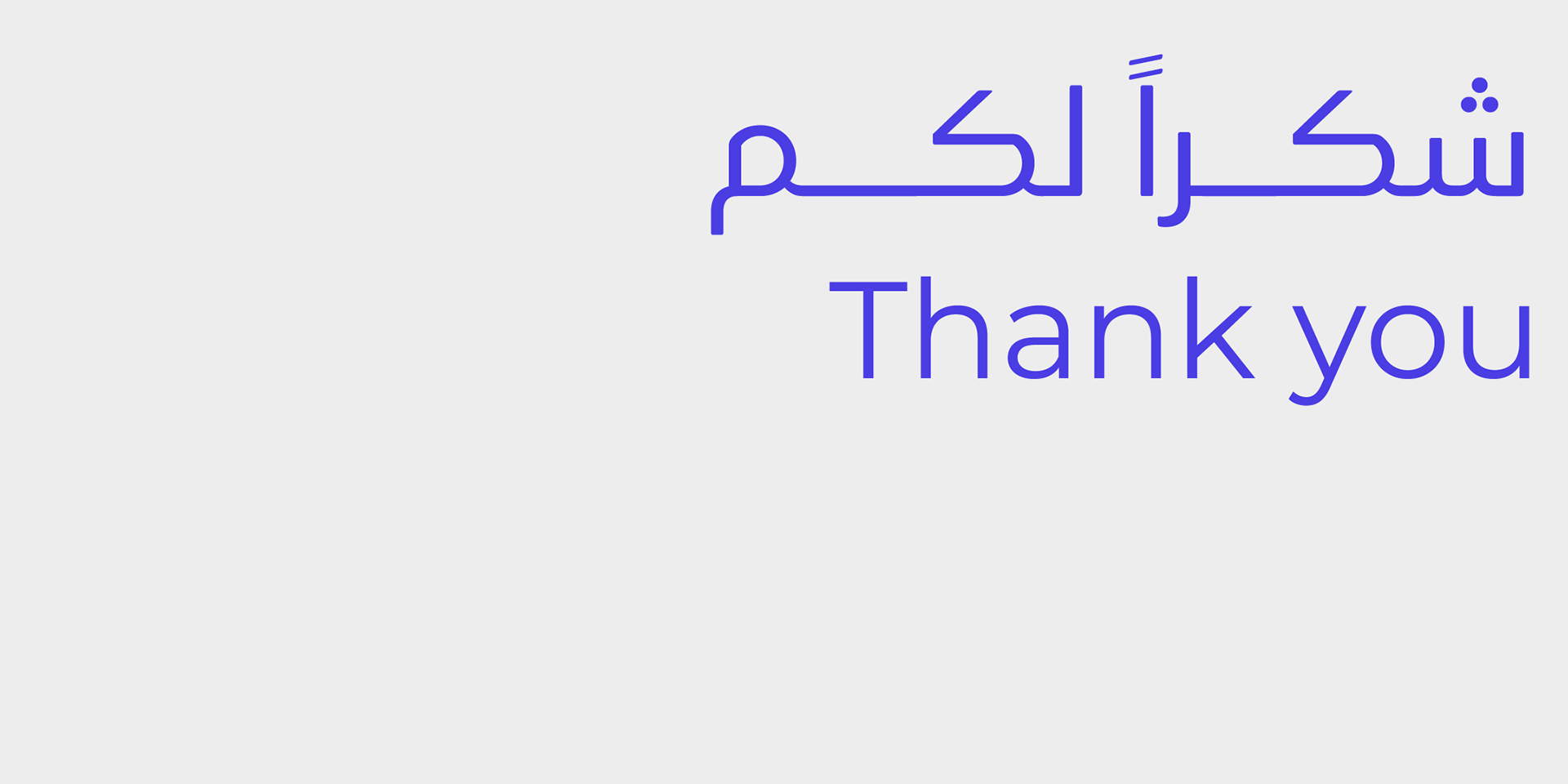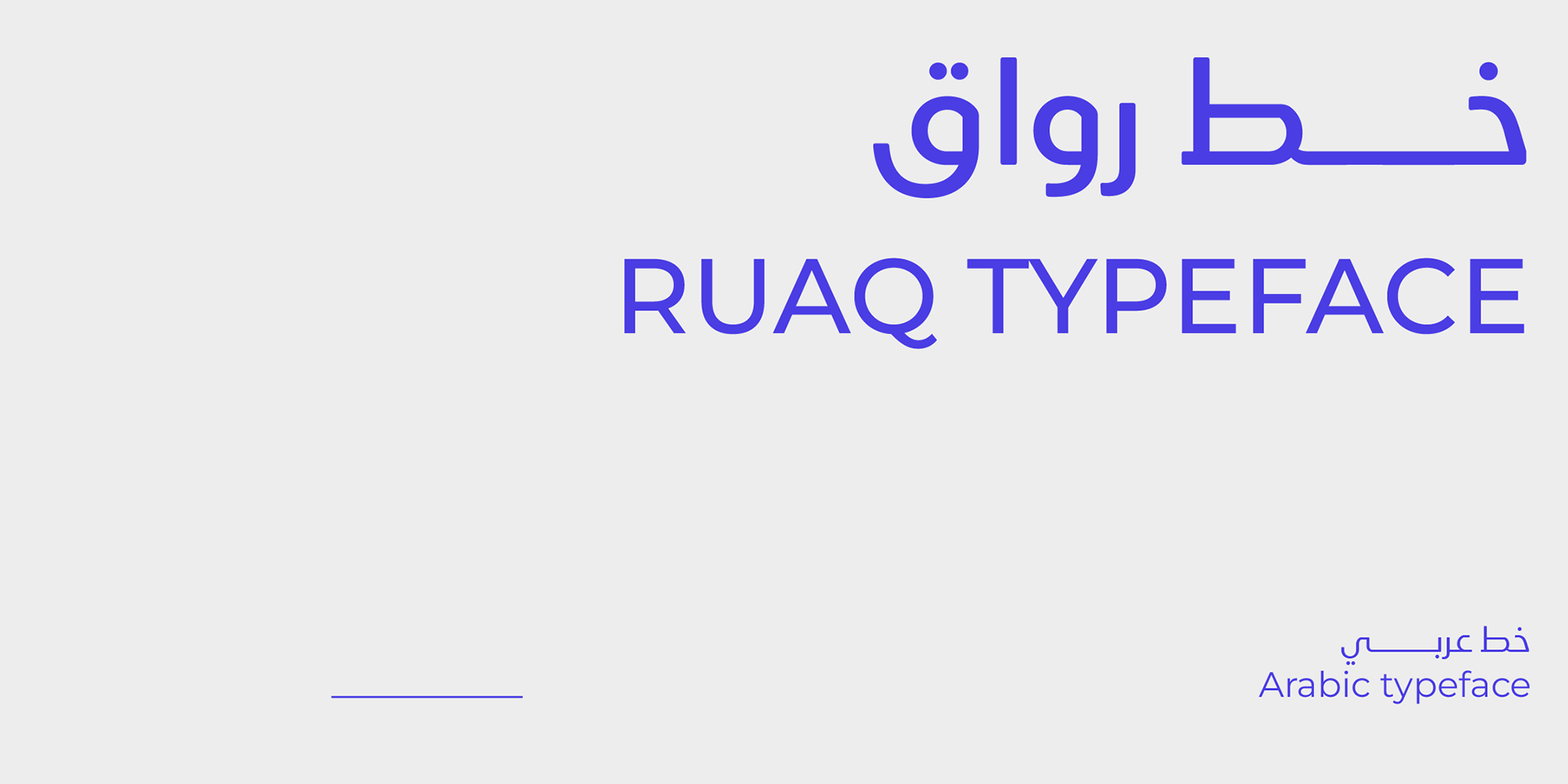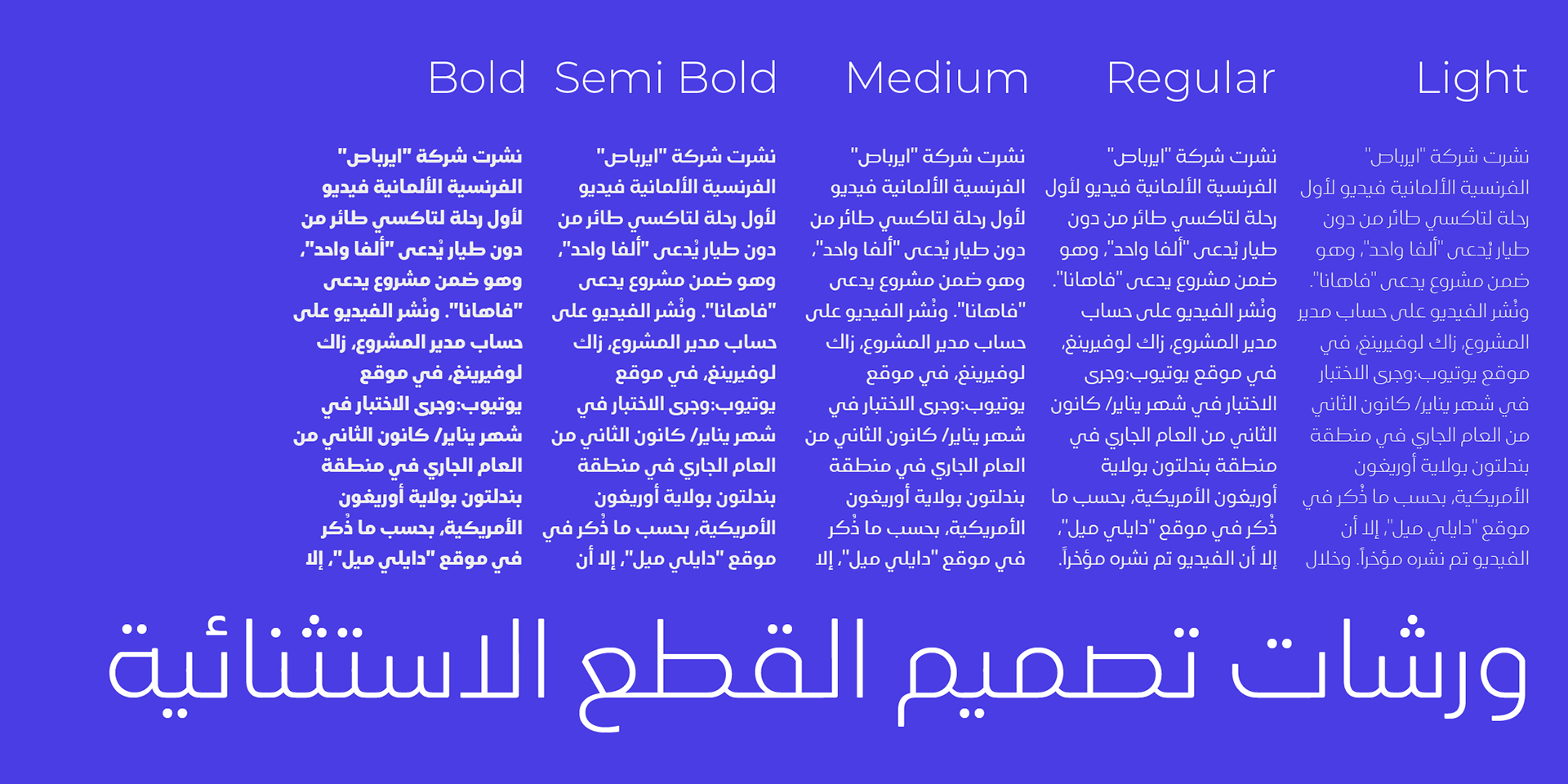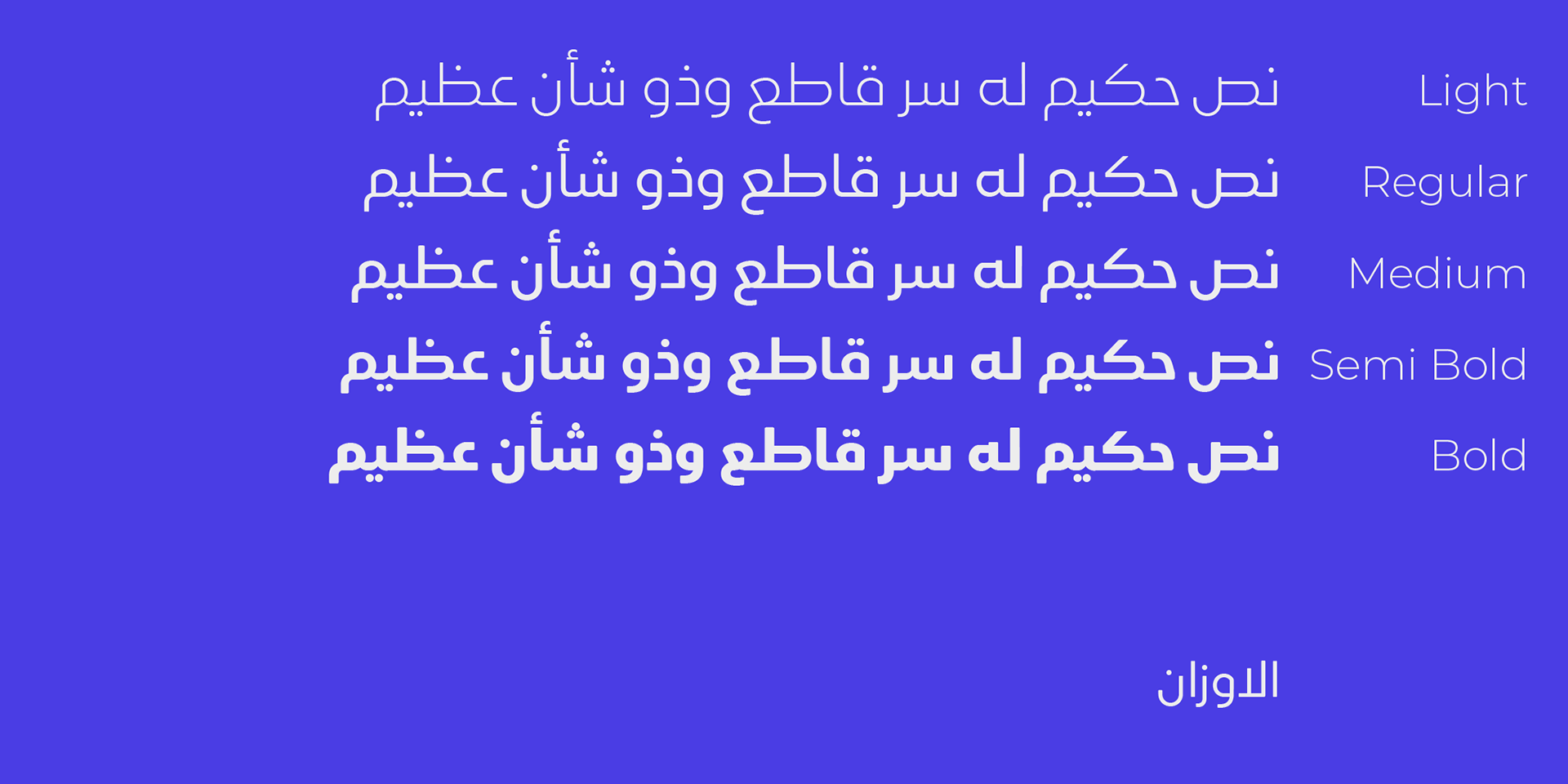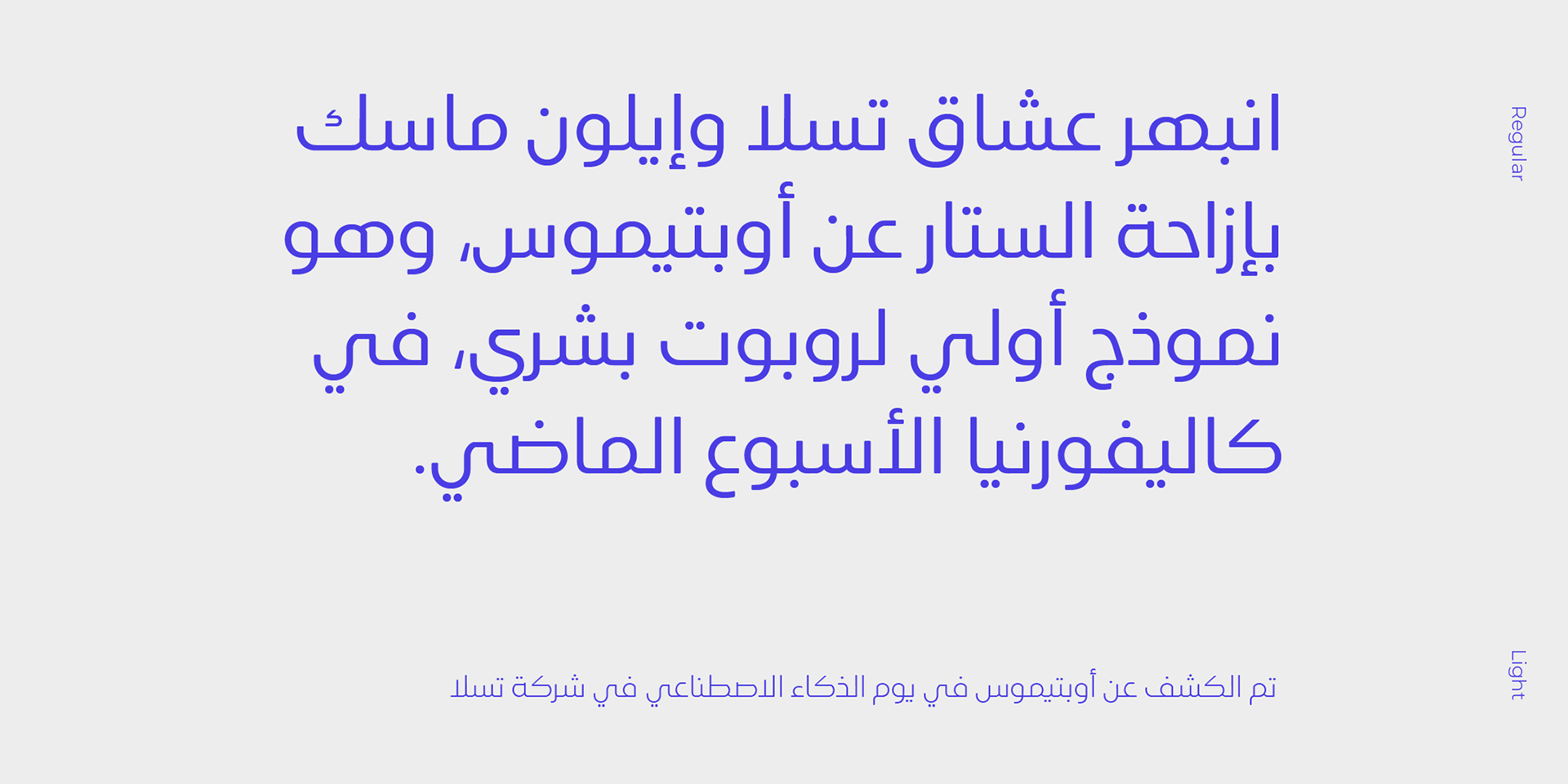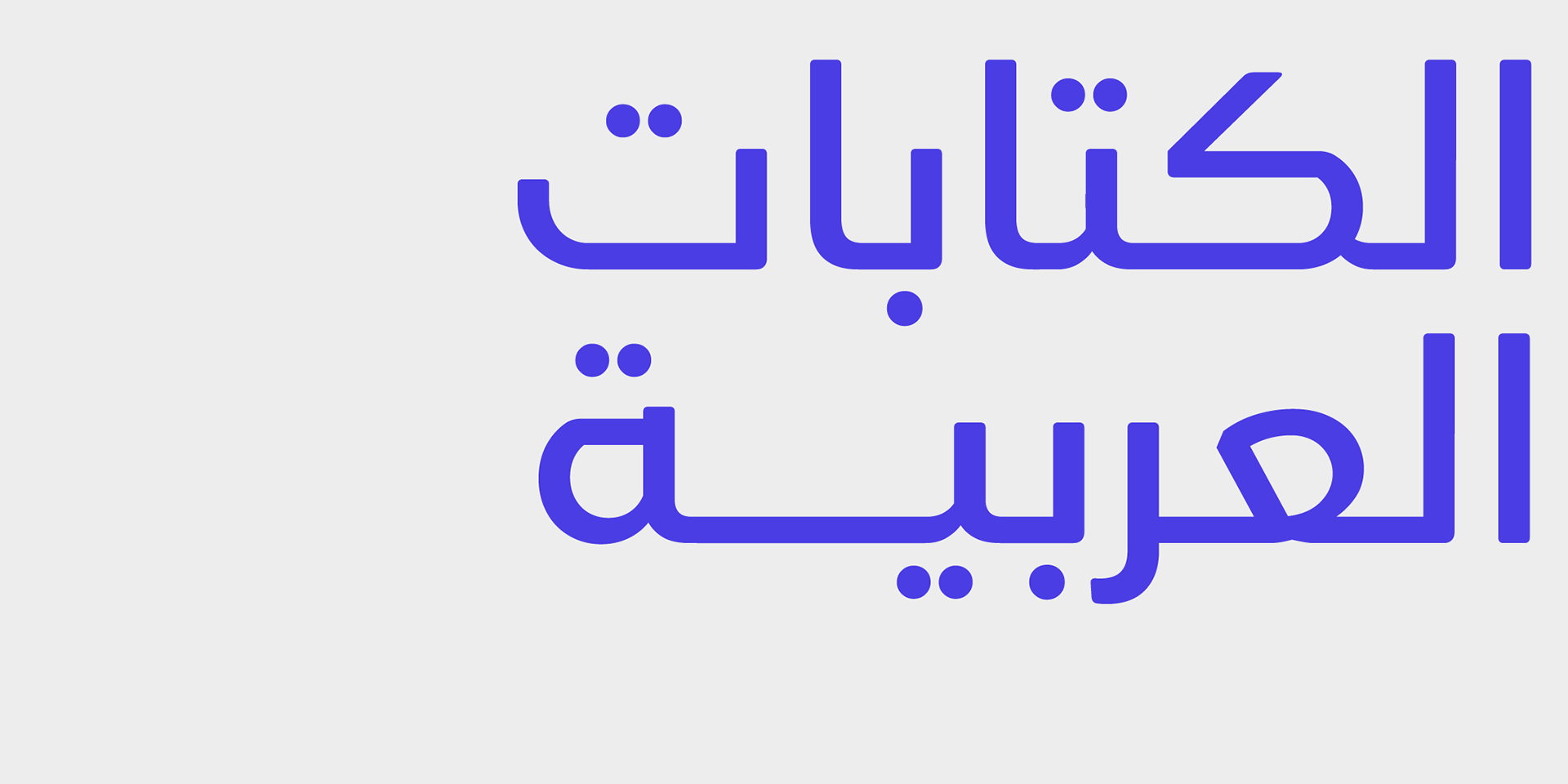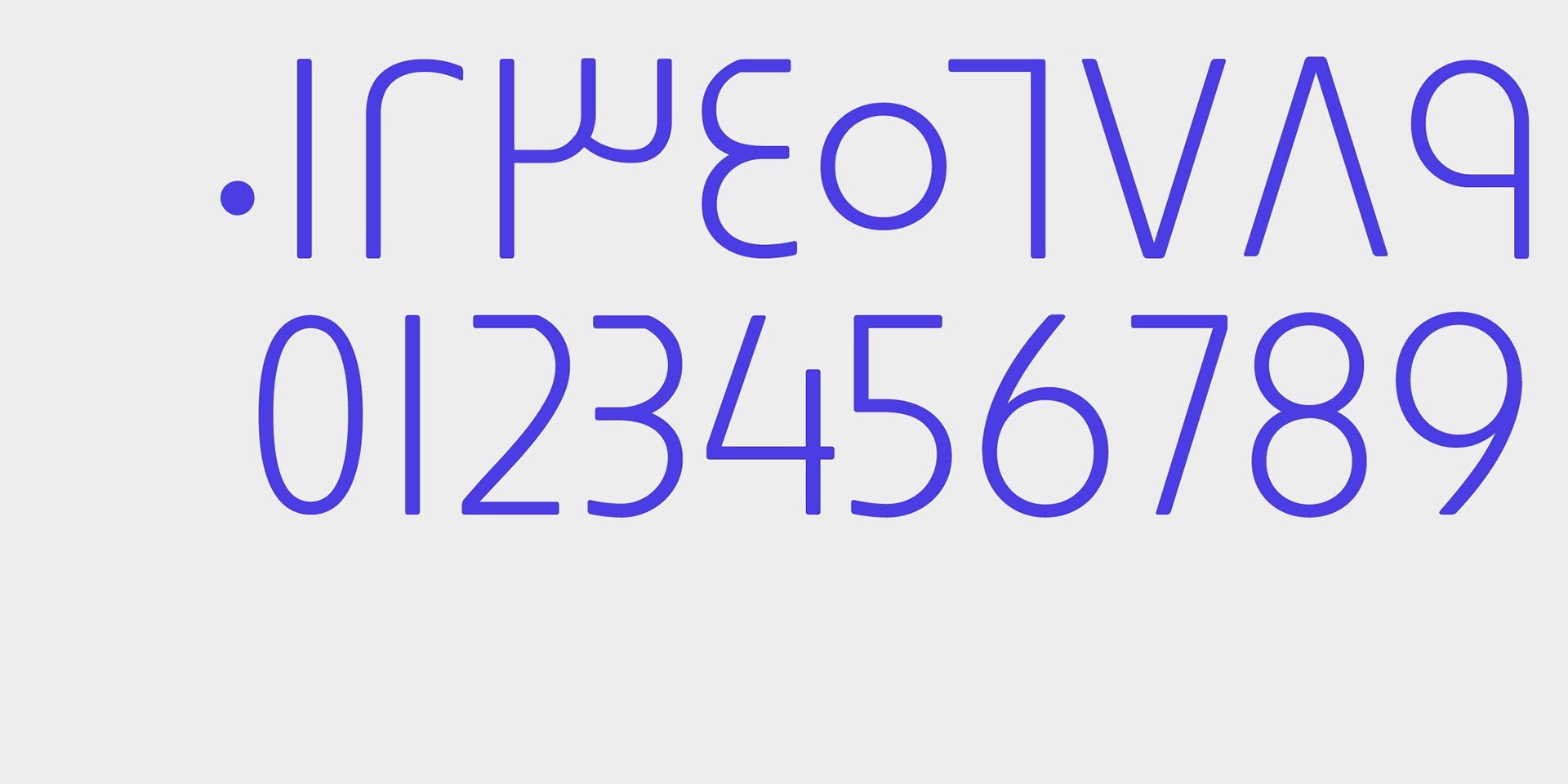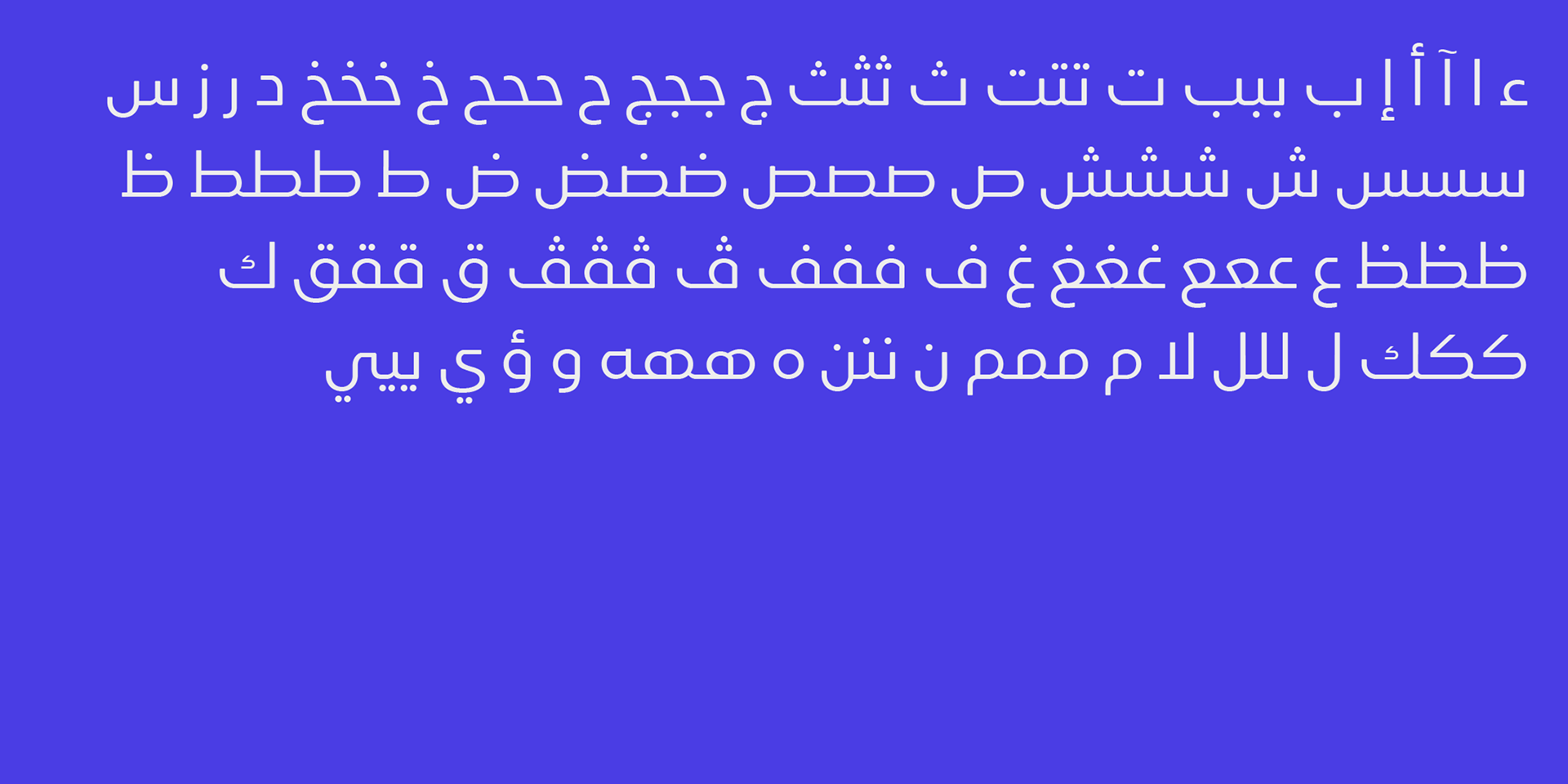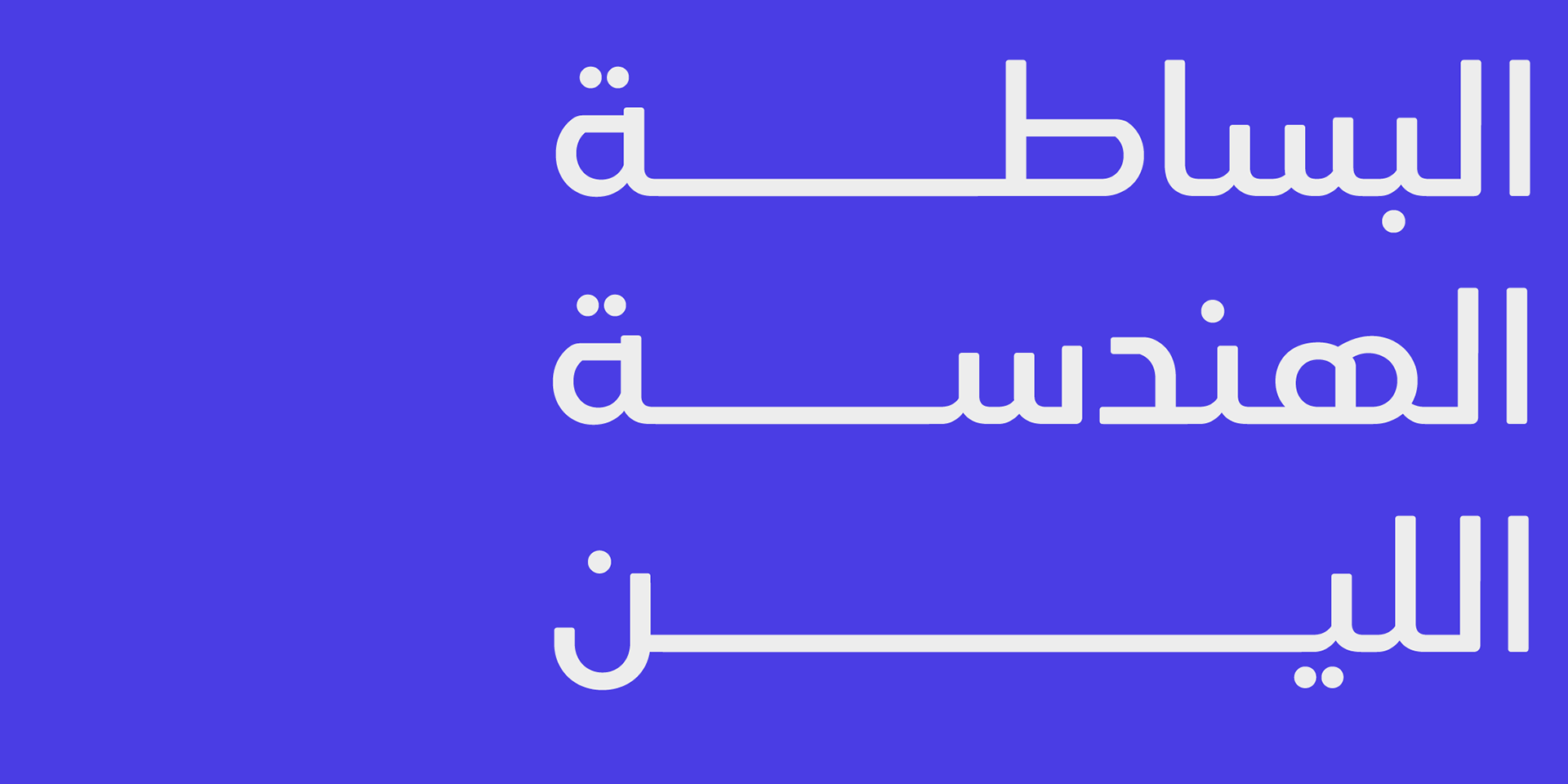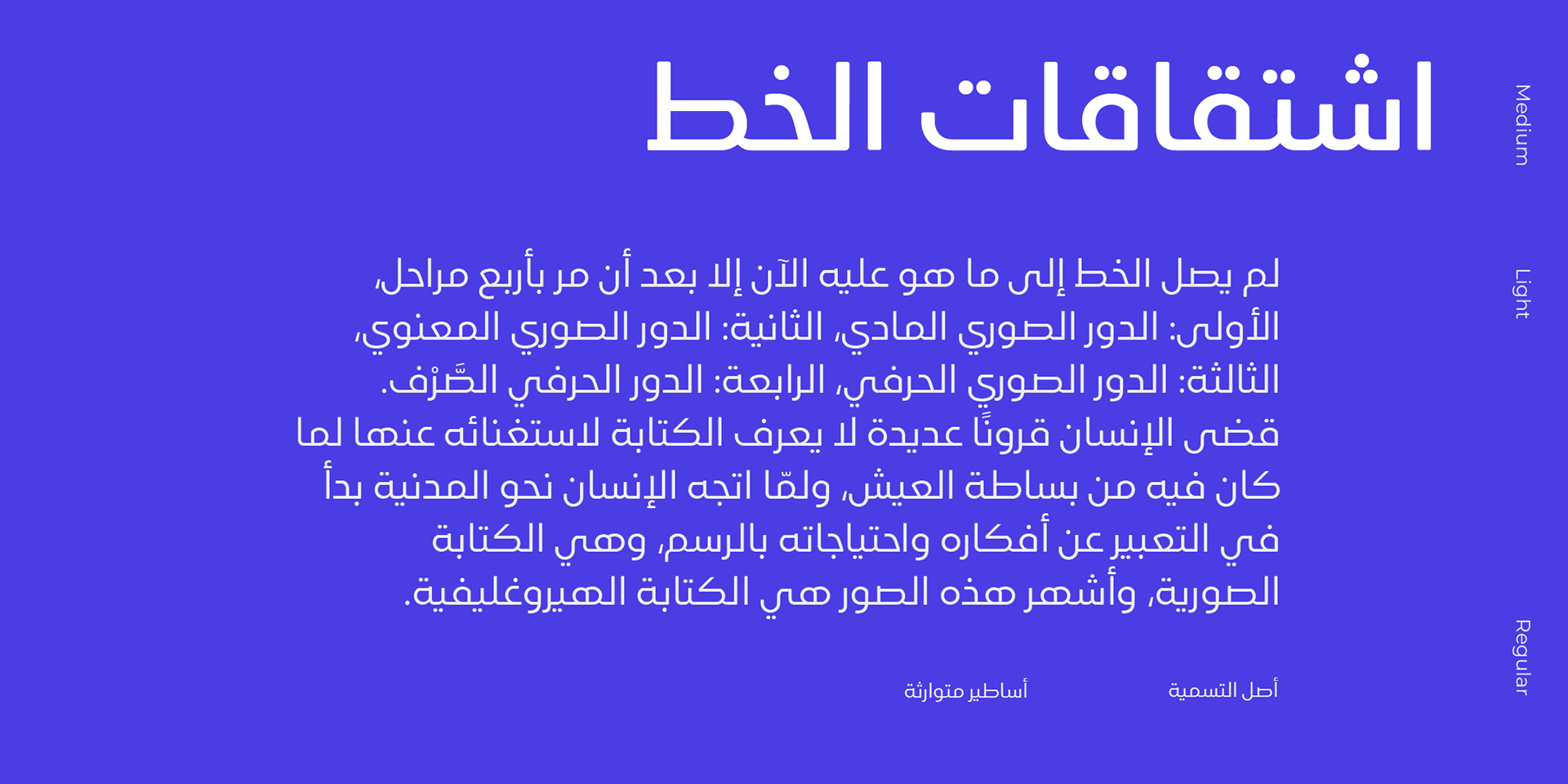
Ruaq Arabic typeface - خط رواق
Introducing Ruaq, the sleek and modern Arabic typeface. This geometric typeface boasts soft edges and simple lines that give it a minimalist and clean look. With five different weights ranging from light to bold, Ruaq is versatile enough to suit any project and can convey a variety of moods, from playful to professional. Whether you're designing for print or digital, Ruaq's smooth curves and precise angles will help your text stand out and capture attention. Its legibility and readability make it an excellent choice for editorial design, packaging, branding, and more. The balanced proportions and subtle design details make Ruaq a timeless and elegant typeface that will elevate any project.